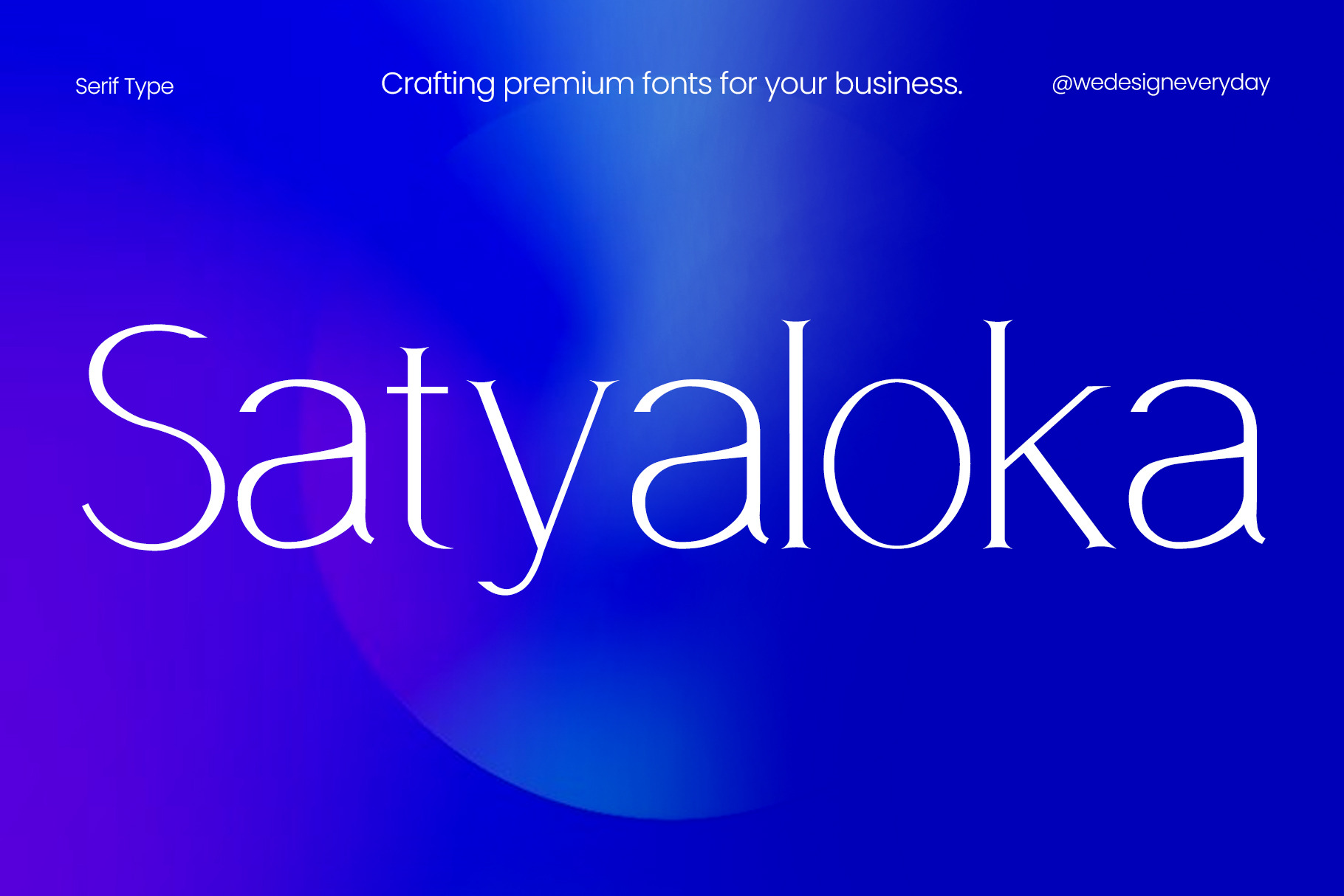
Satyaloka Serif Font
Satyaloka serif typeface designed to elevate your creative projects with timeless elegance. Perfect for branding, editorial layouts, wedding invitations, striking headlines, refined logos, websites and luxury magazine.